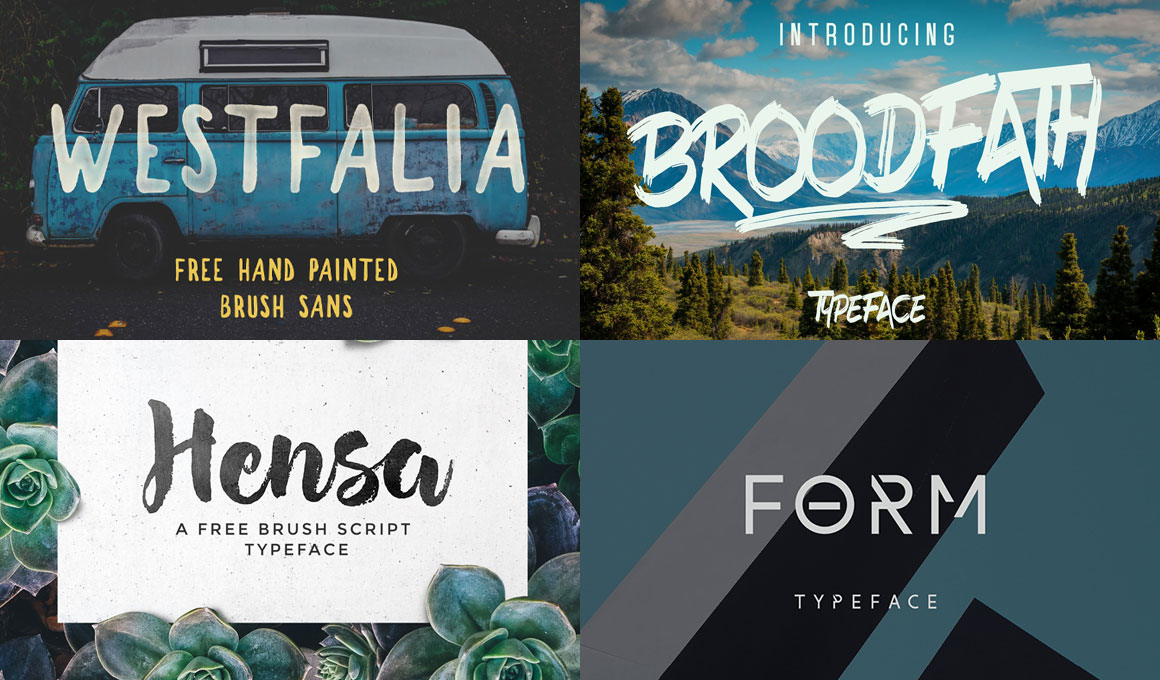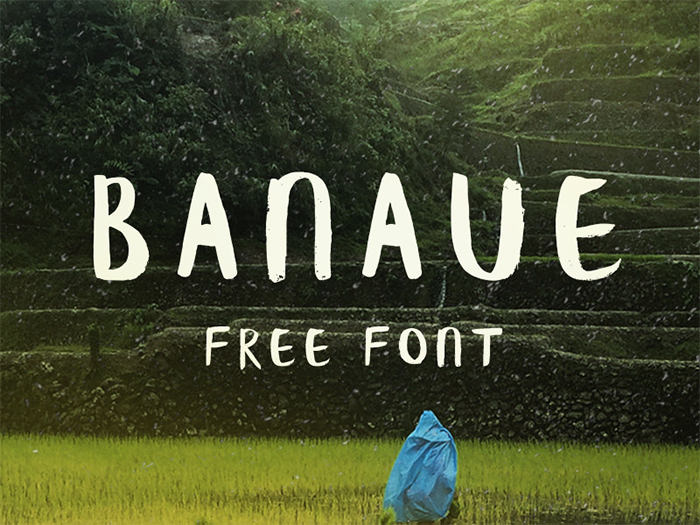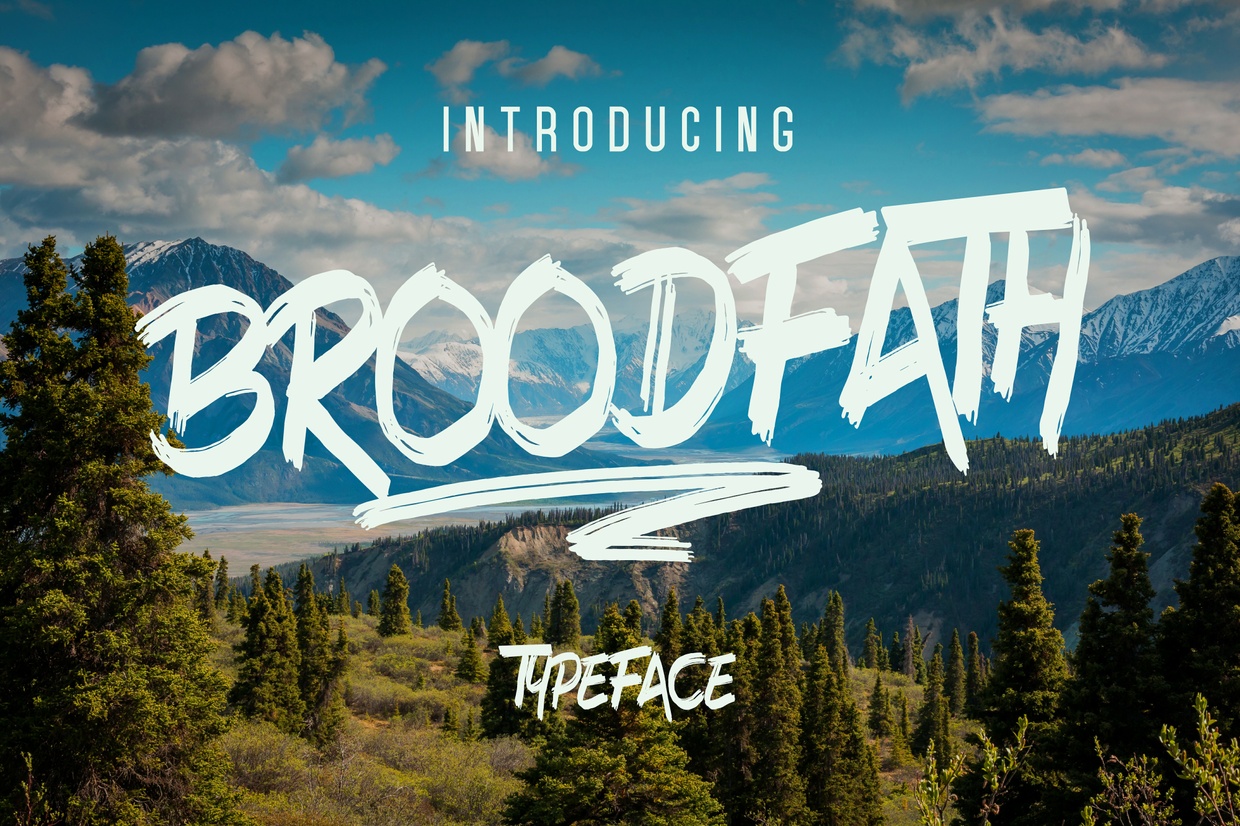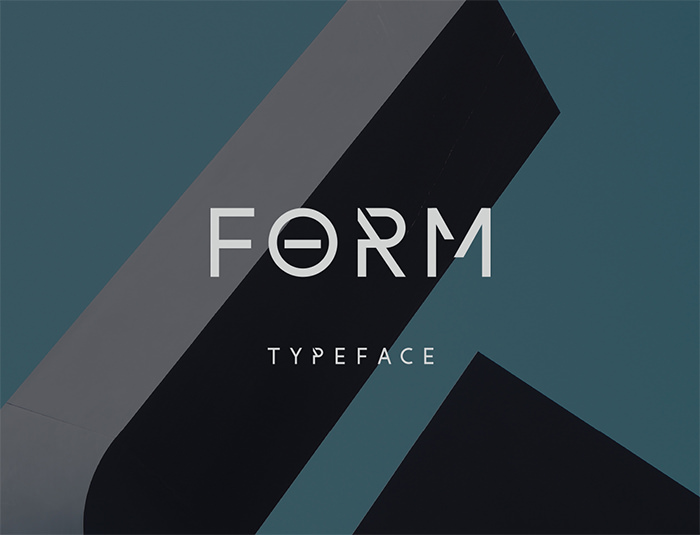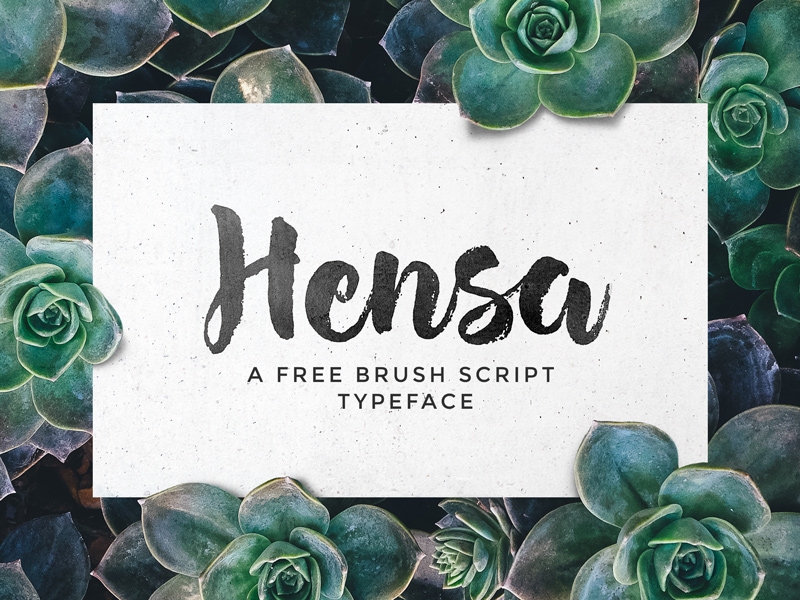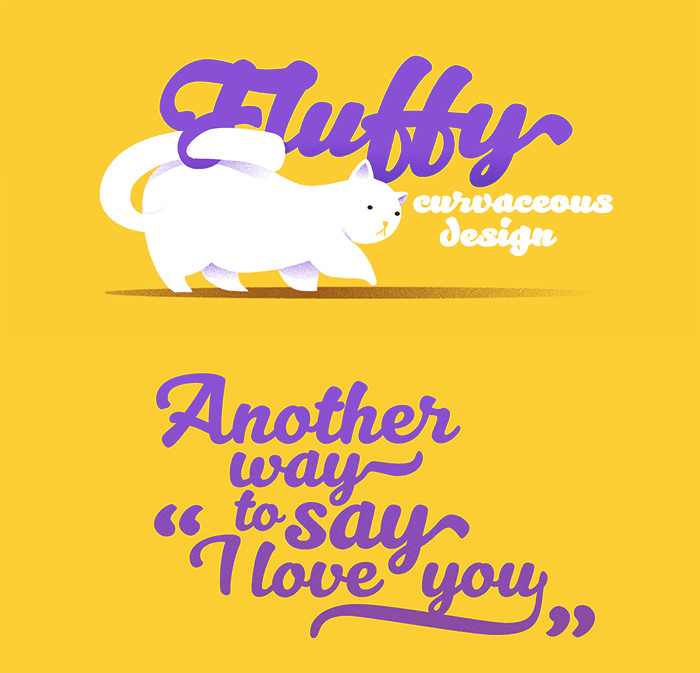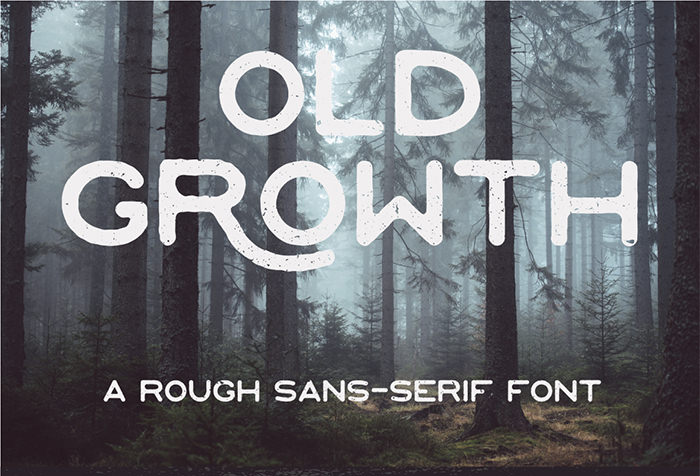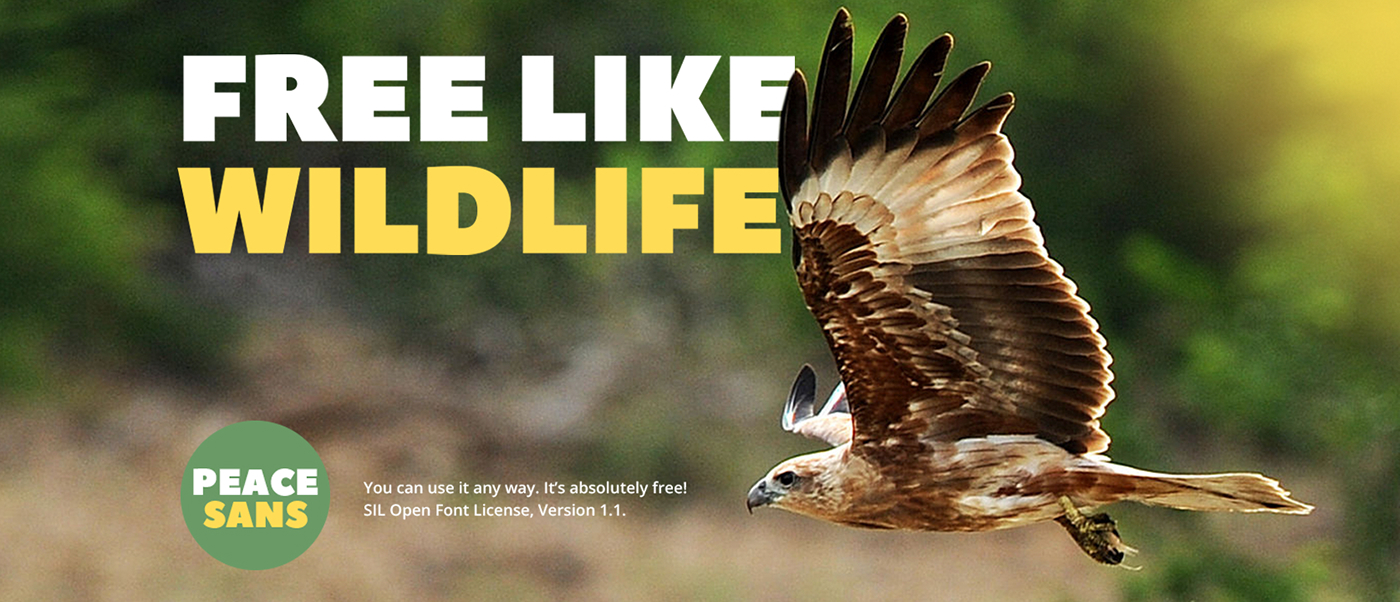
10+ Bold and Chunky Free Fonts to Download
Free Bold and Chunky Fonts to Improve up Your Designs.
Our Collection of bold and chunky fonts can be used for headlines, titles, or some other aspect of your design. Most of these fonts can be used for both personal and commercial use.
Bold fonts are certain must-have fonts that become quintessential for your designs. Those fonts add a lot of substance to your design and look aesthetically pleasing as well.